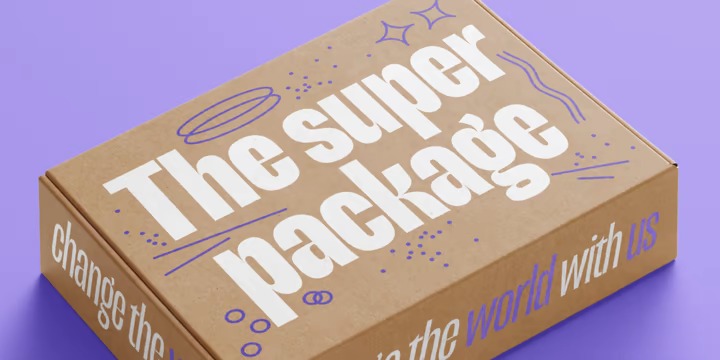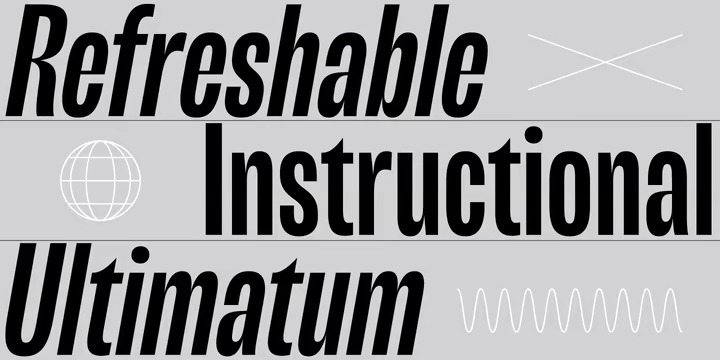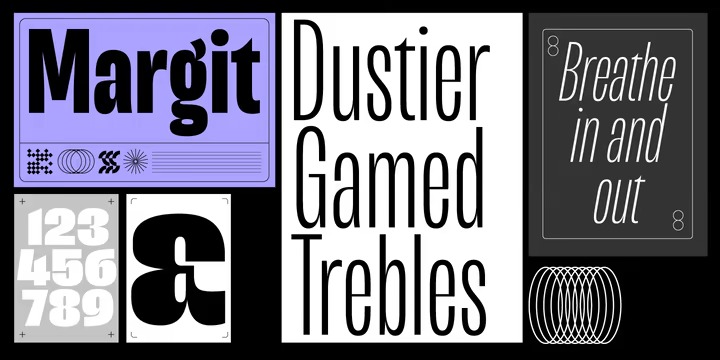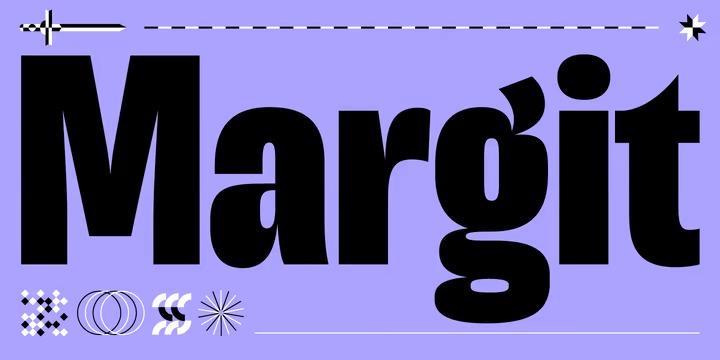
Margit Font Family
Margit Sans Serif Font
This is a new sans serif typeface of the 21st century. It has modern prim letter accents and comes with beautiful vowel combination ligatures. Margit’s letterforms have a contemporary style with pointy edges and friendly curves inspired by old wood-type specimens. Its bold and unapologetic design will be great to use in poster design, giving the content a stronger voice. This font family can bring a unique look to your packaging projects and modern branding solutions. Explore the extensive range of styles and weights that make this typeface ultra-versatile.